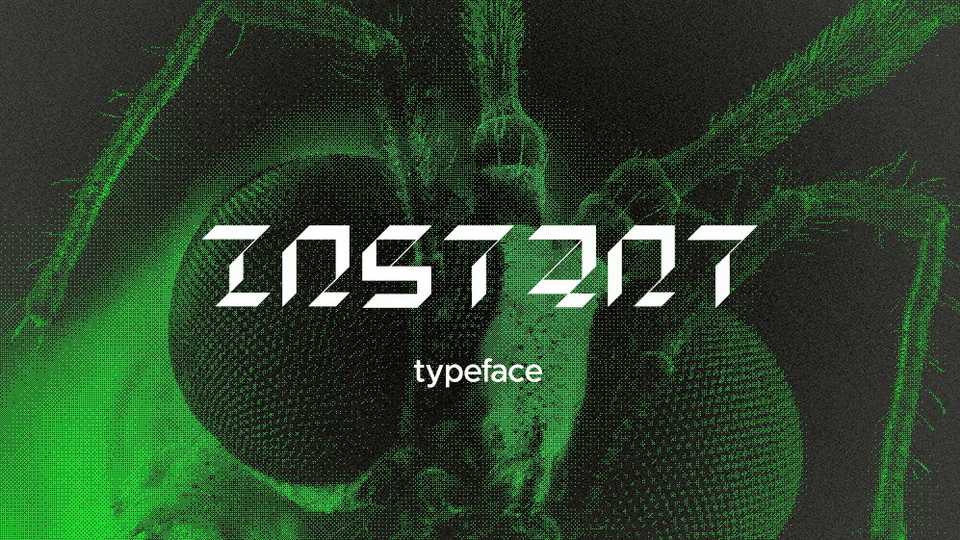
Download Instant font, a bold sharp-edged experimental typeface. With its futuristic look, Instant font is perfect for technology, games, poster design and artworks.